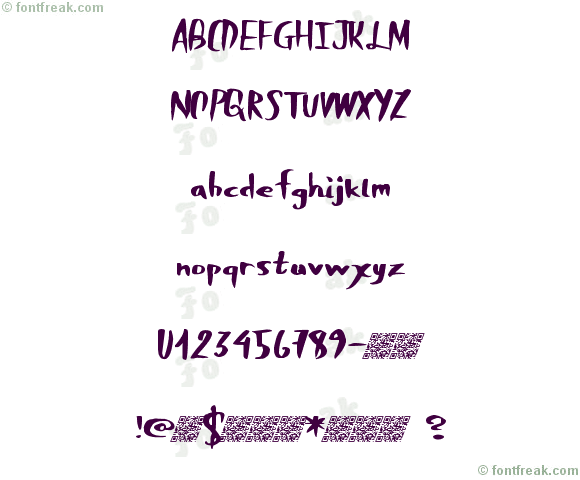
SmokingParadise
SmokingParadise by XEROGRAPHER FONTS is a captivating handwritten font that exudes a casual and laid-back vibe. Released in 2014, this typeface is characterized by its playful strokes and organic forms, making it perfect for a variety of creative projects. The font features a medium stroke weight with a slight contrast, which adds to its charm. Its loose spacing and fluid letterforms create an inviting and friendly appearance, while subtle decorative elements enhance its uniqueness.
This versatile font is an excellent choice for use in wedding invitations, where its whimsical style can convey a sense of warmth and joy. It also shines in the realm of movie posters, particularly for indie films seeking an artistic flair. Restaurant menus benefit from the legibility and casual feel of SmokingParadise, making patrons feel right at home. Additionally, it can elevate branding for small businesses, particularly those in creative industries like art studios or coffee shops, allowing them to stand out in a crowded market.
What sets the SmokingParadise font apart is its ability to blend a relaxed and artistic feel with practicality. It invites creativity while remaining functional for various applications. Whether you're crafting a heartfelt invitation or a bold promotional piece, SmokingParadise adds a touch of personality that leaves a lasting impression. With its unique characteristics and versatility, this font is sure to inspire and elevate any design project.